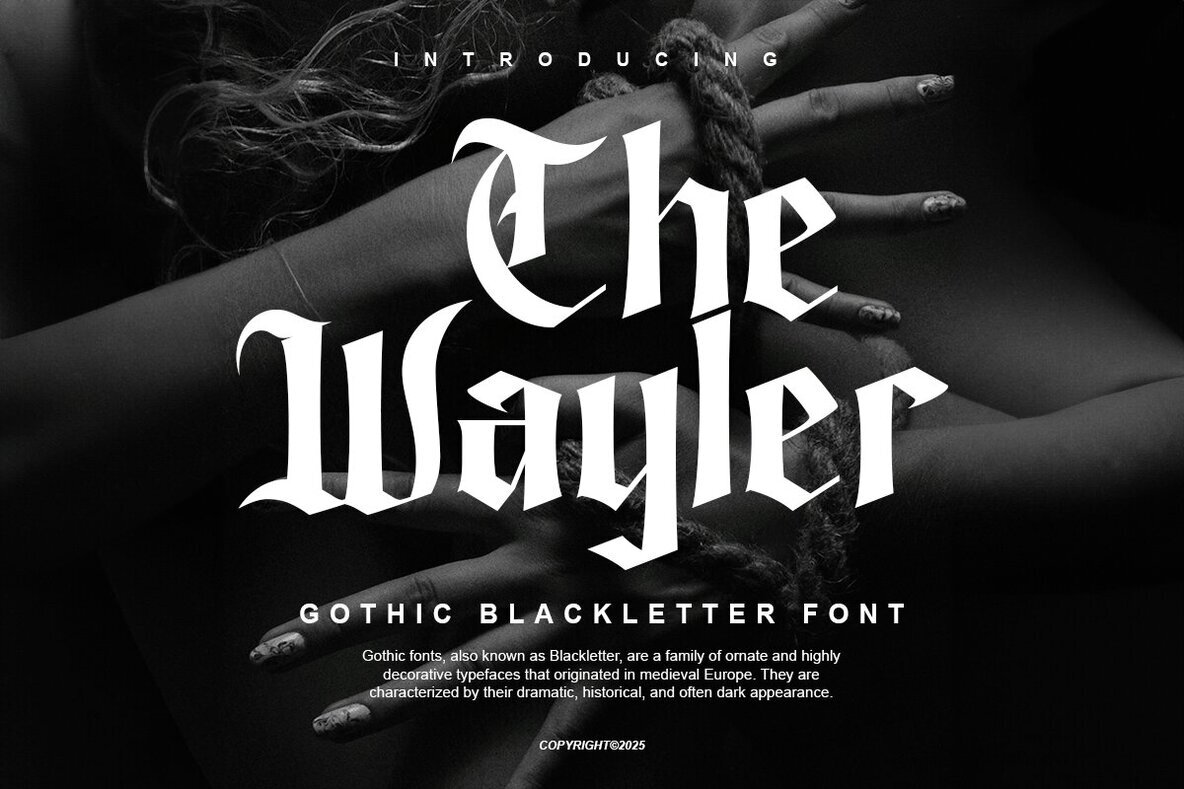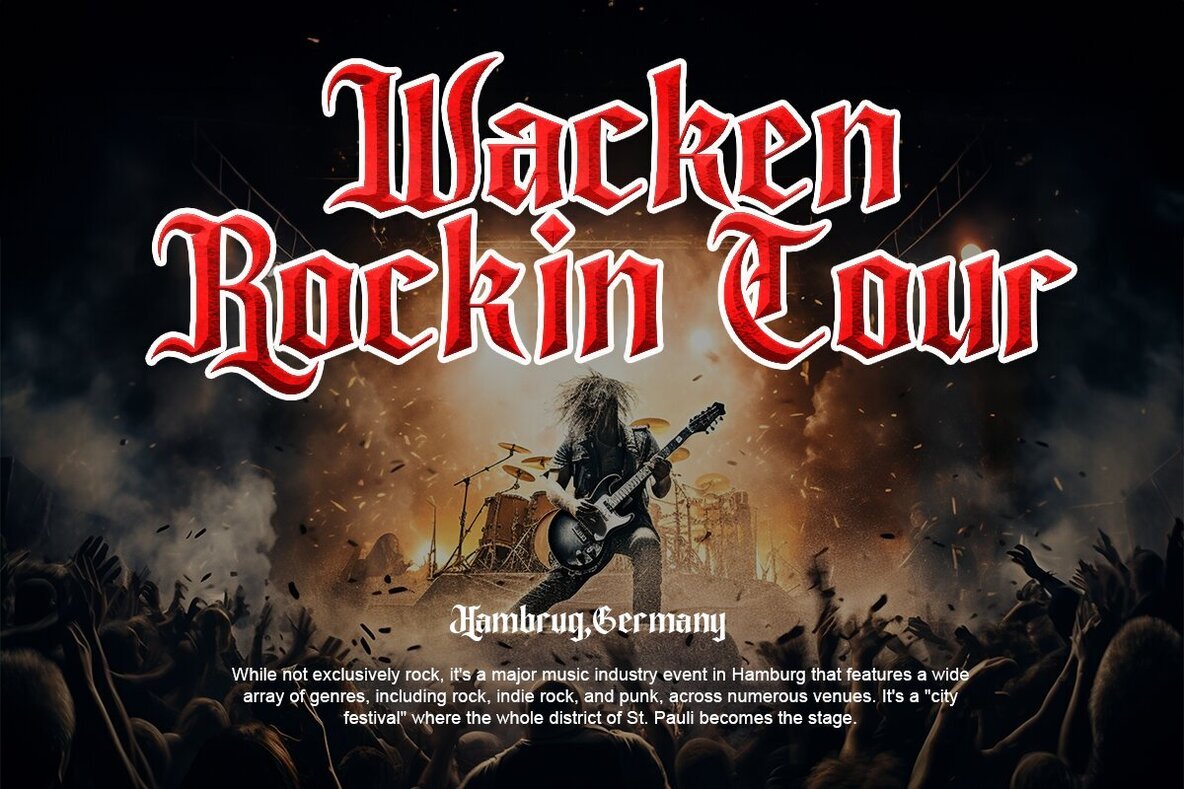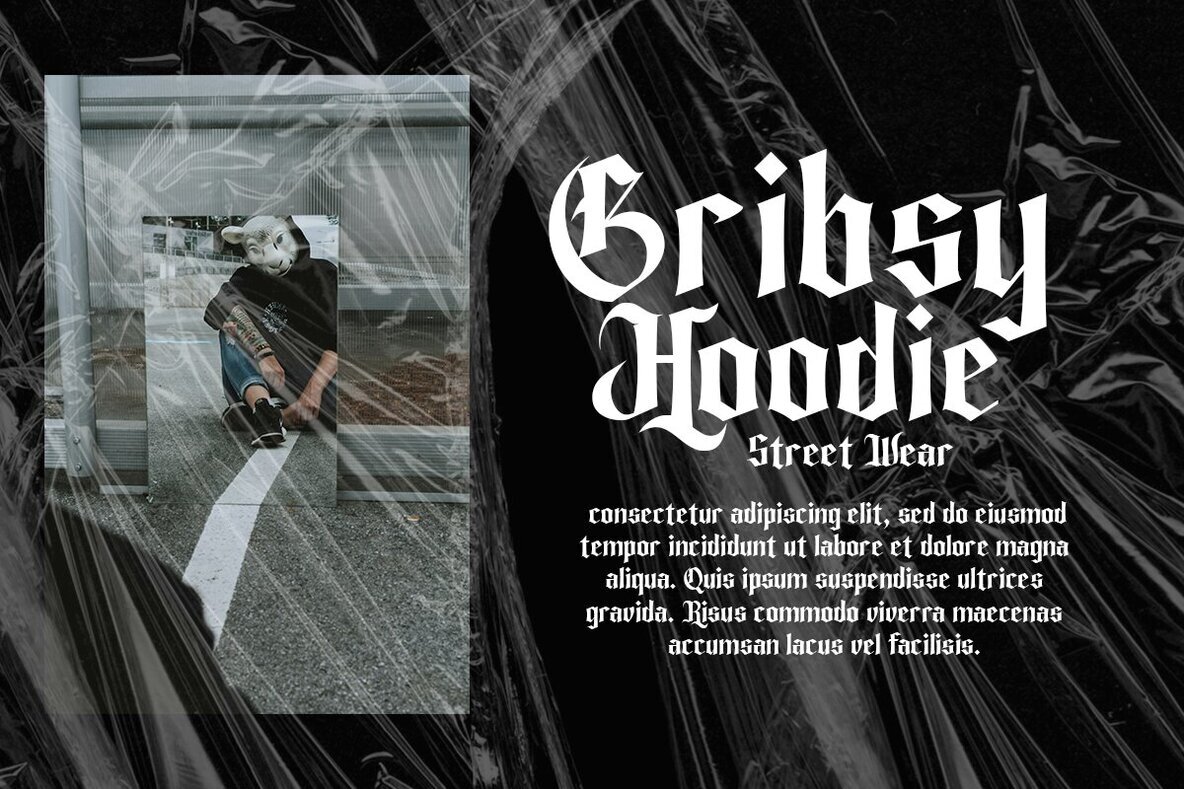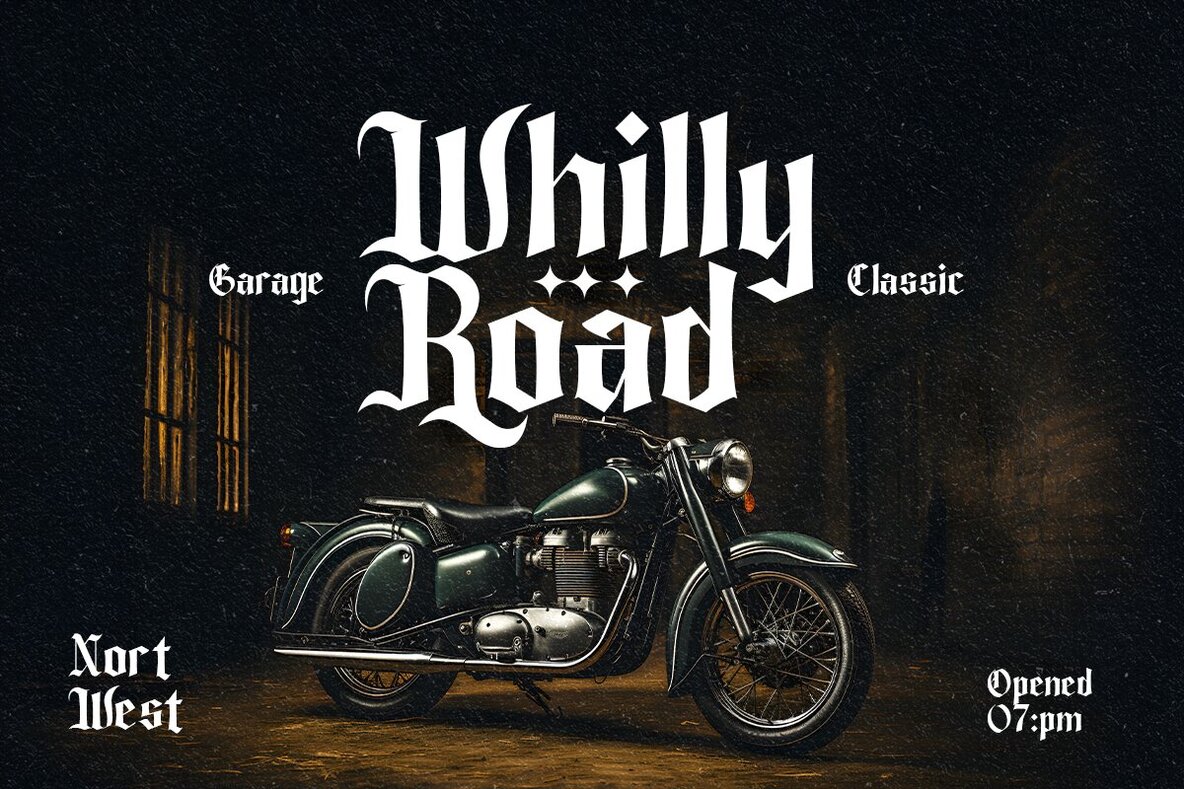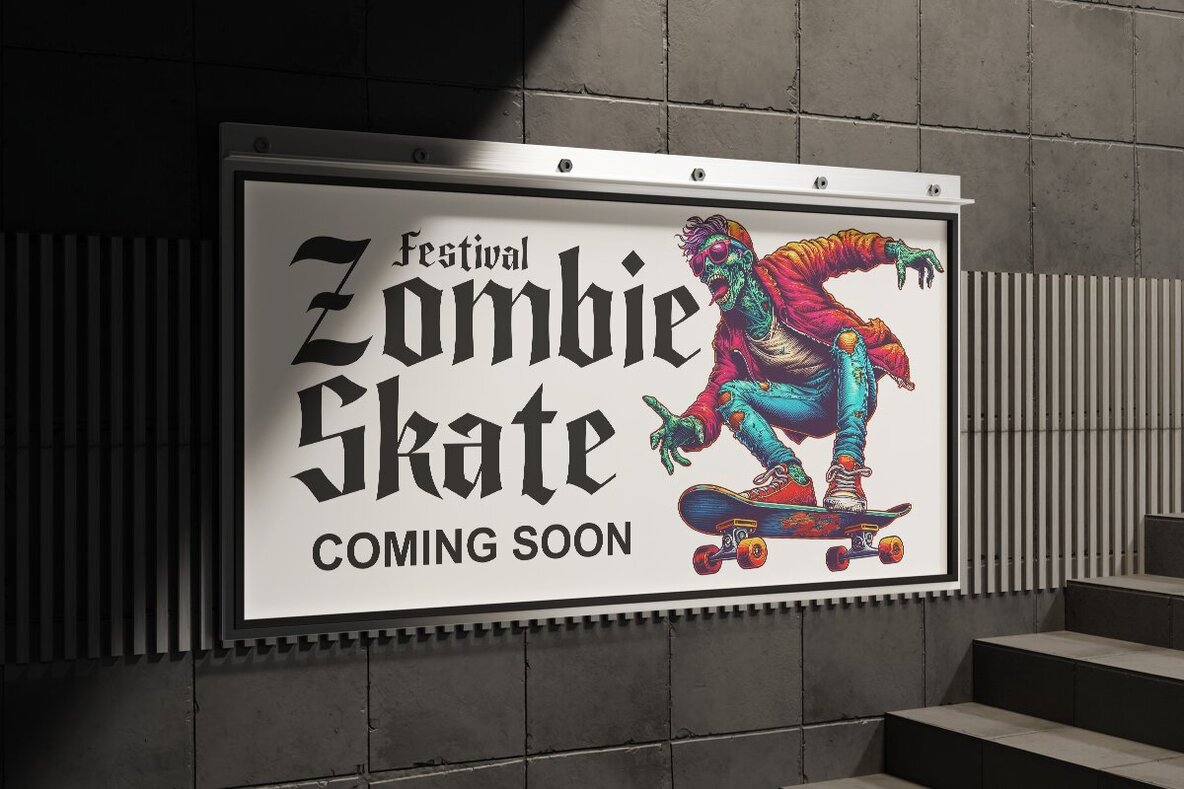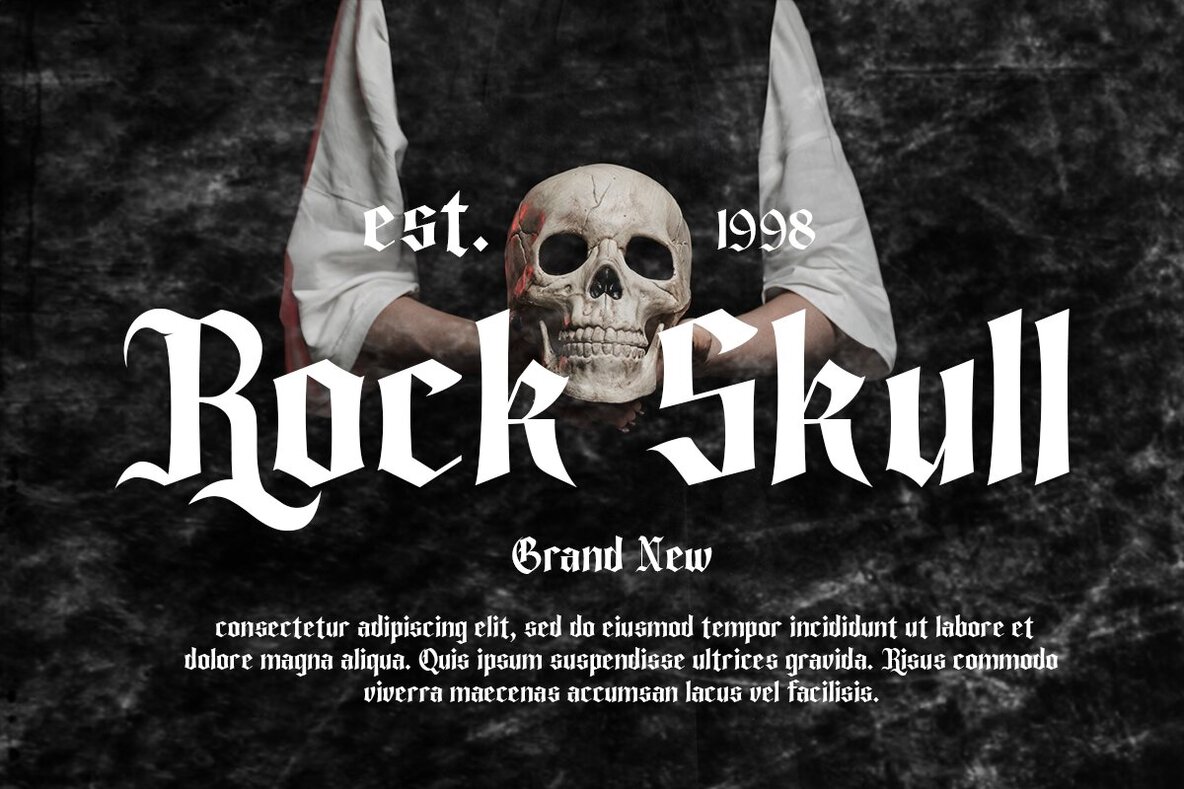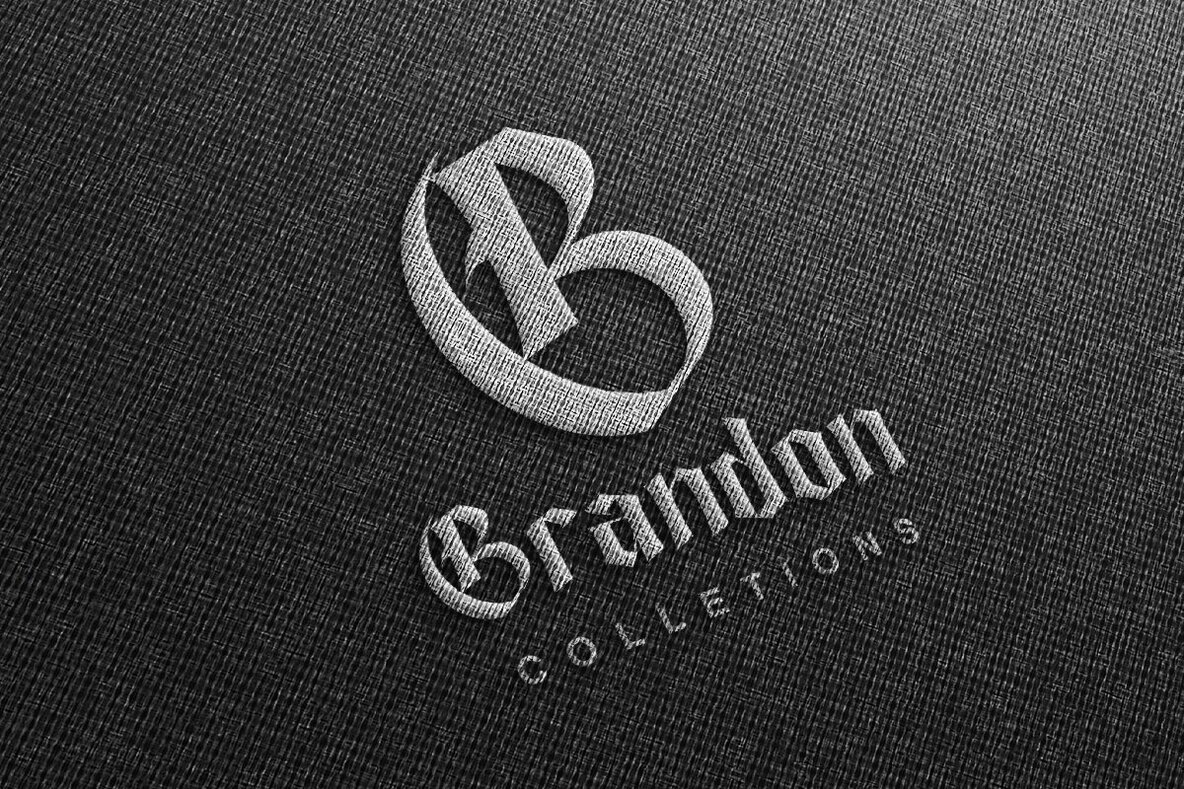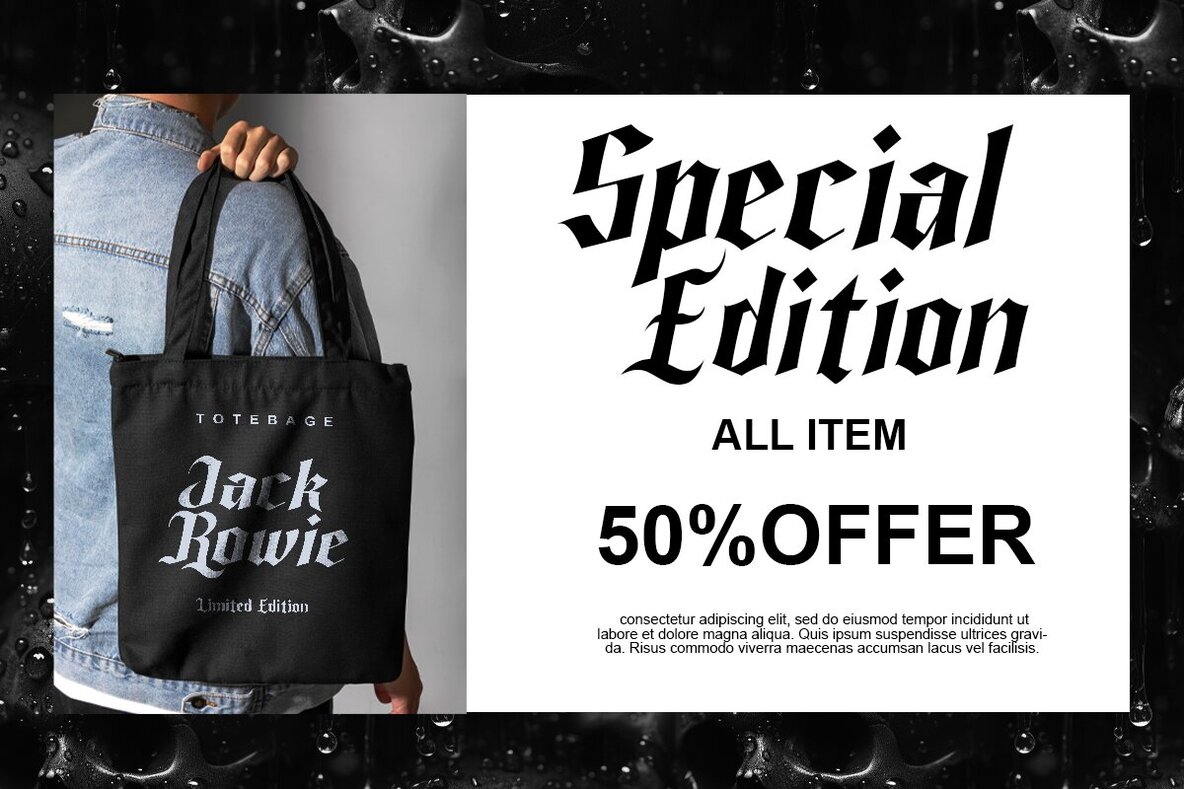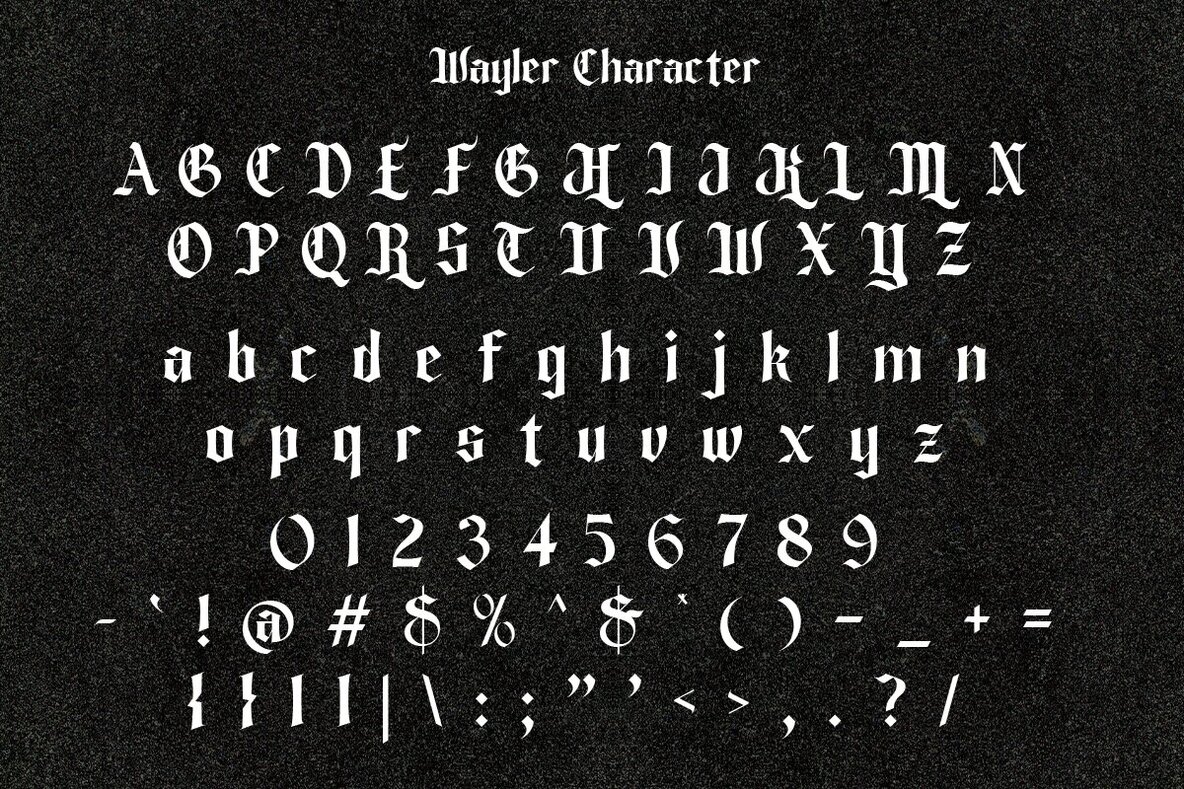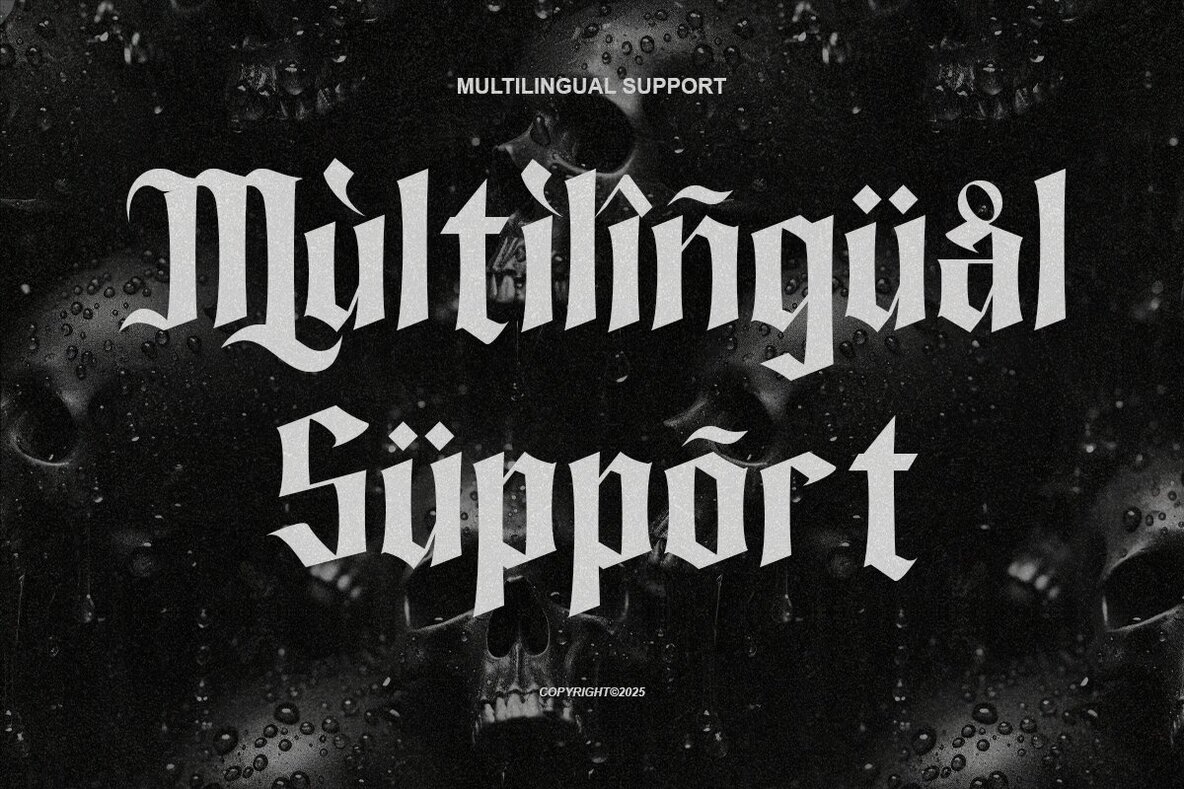
The Wayler Font
Unleash your creative prowess with The Wayler, a Gothic Blackletter font designed to captivate and elevate your projects to new levels. With its sharp edges and aggressive strokes, The Wayler is forged for those who dare to stand out. Infused with the raw energy of metal, gothic, and underground aesthetics, it's perfect for making a bold statement. Available Styles: Includes multilingual support to ensure your message resonates globally.The Wayler: Gothic Blackletter Font
Ideal For: